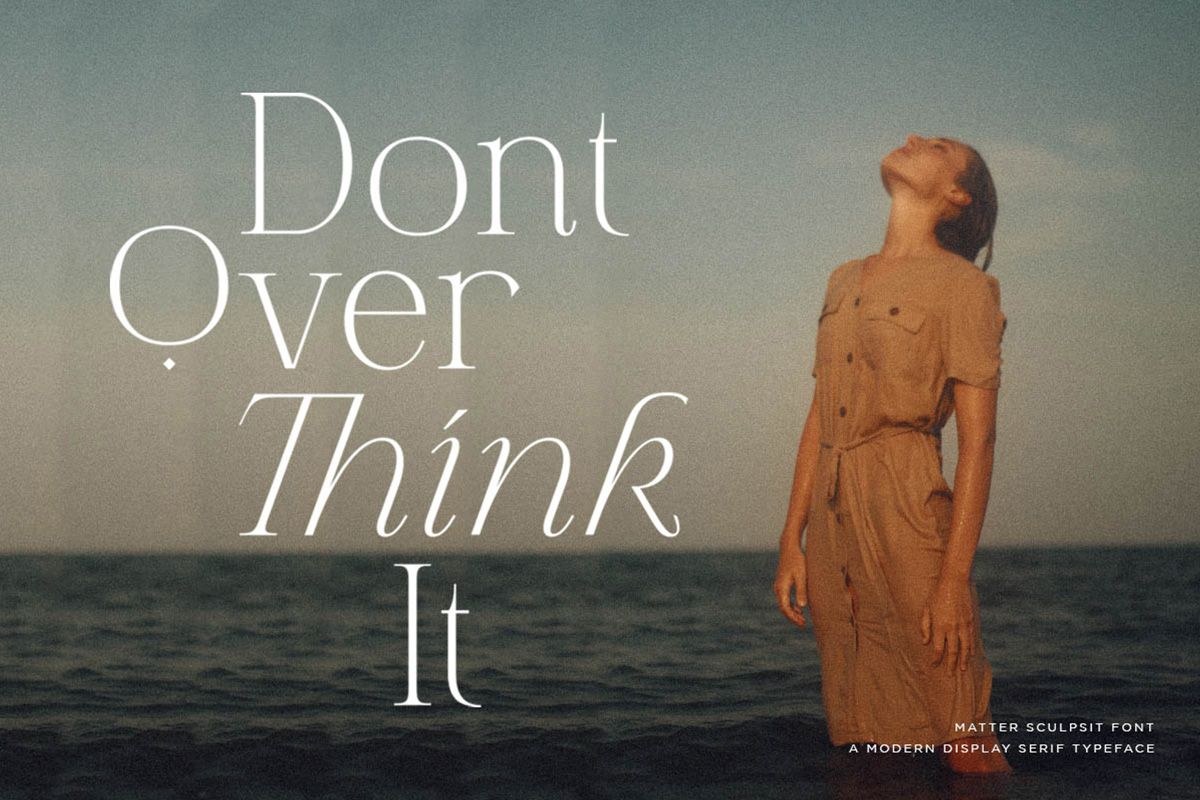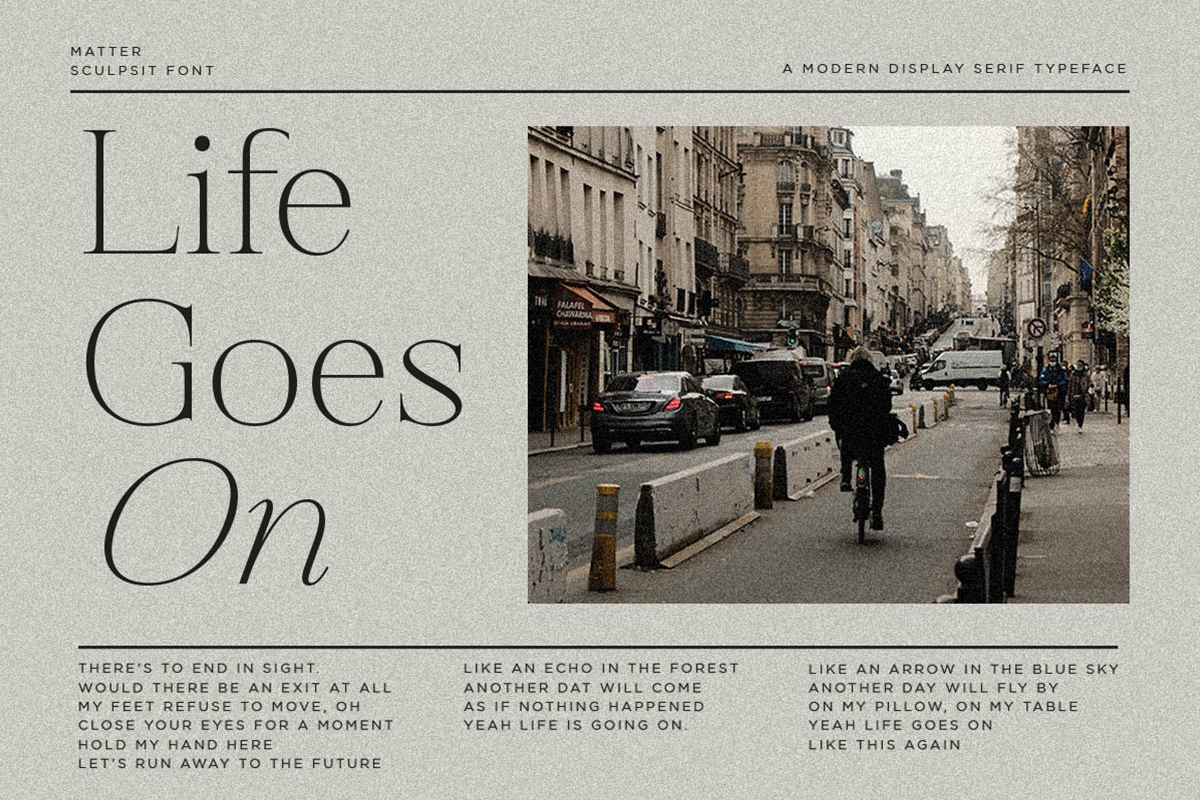
Matter Sculpsit Font
Matter Sculpsit Serif Font Is A Classic Serif Fonts Inspired By Modern and Ligature Characters. You can use this font for several purposes such as a wedding invitations or even your own branding! Also comes with beautifully crafted details that make this font more stylish.